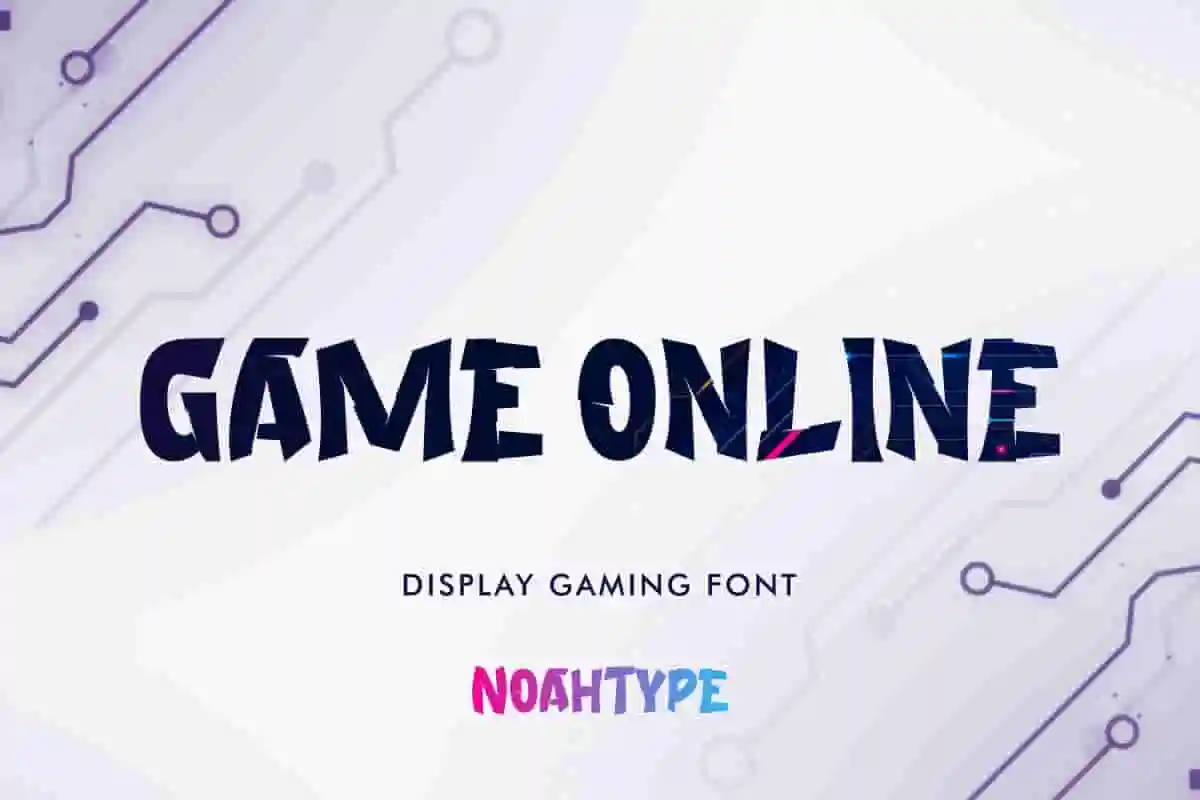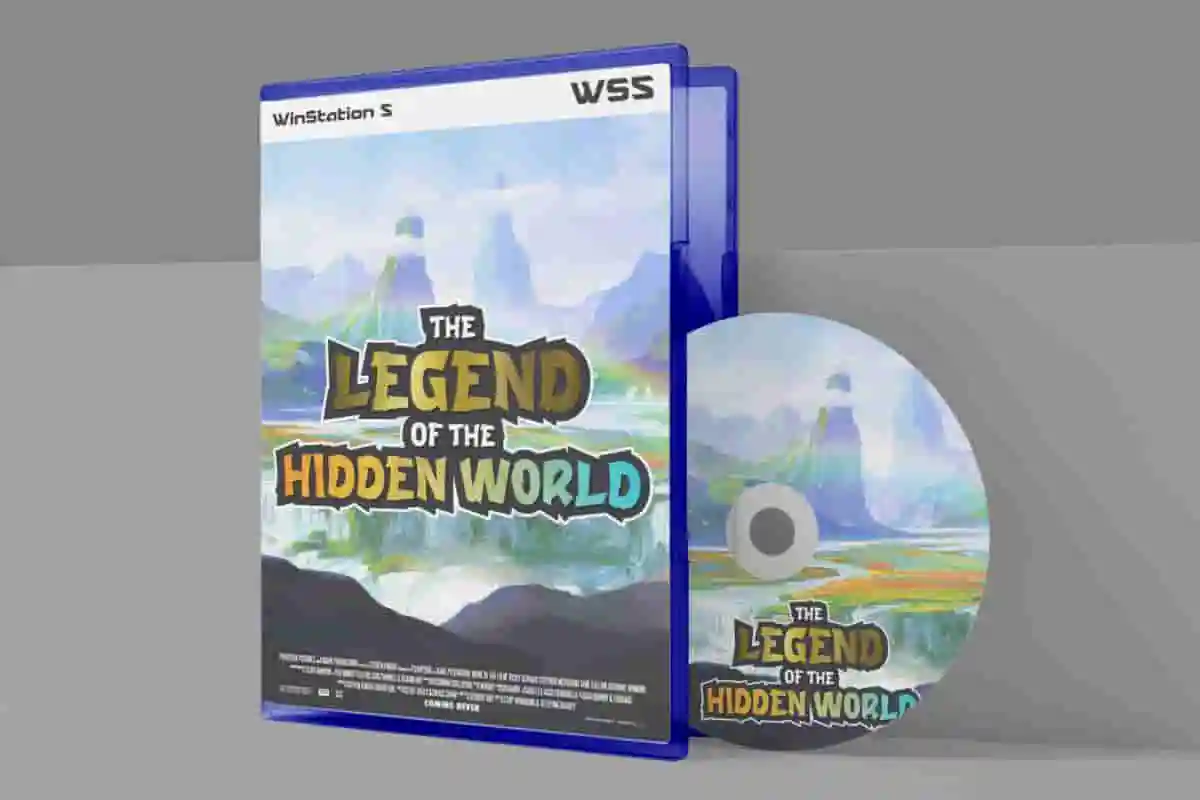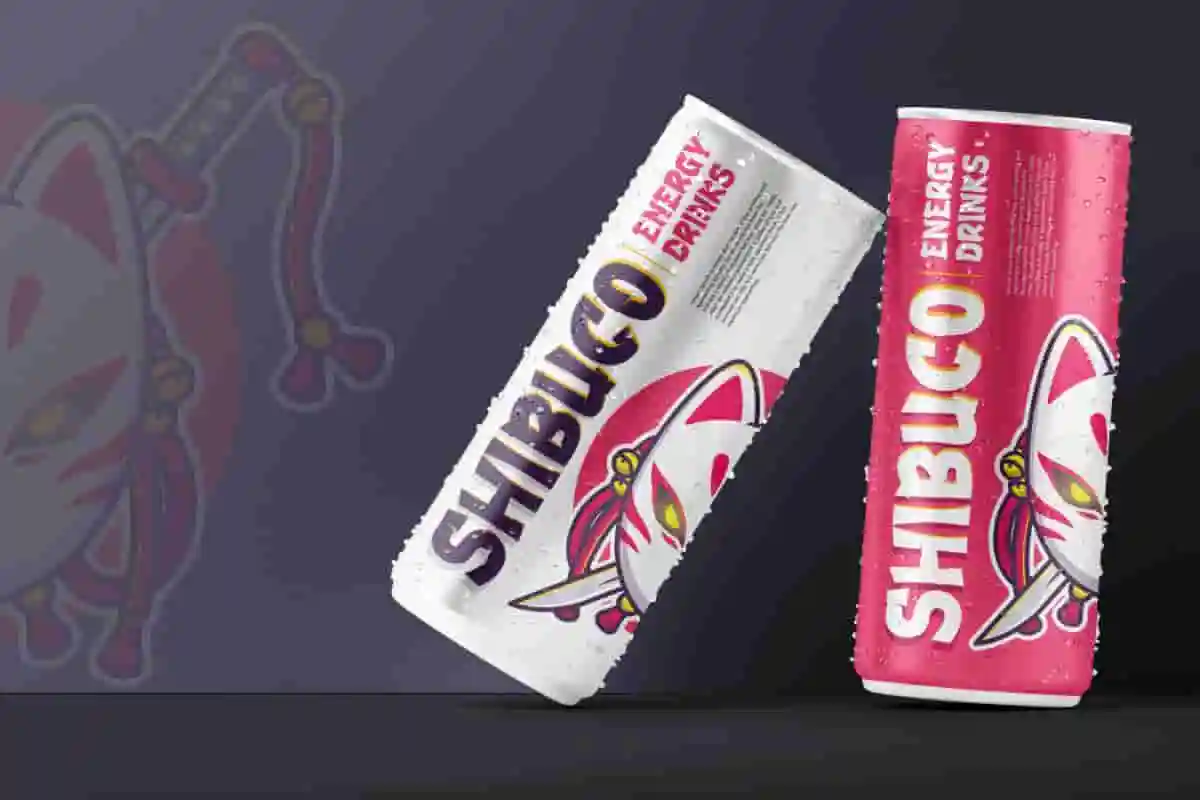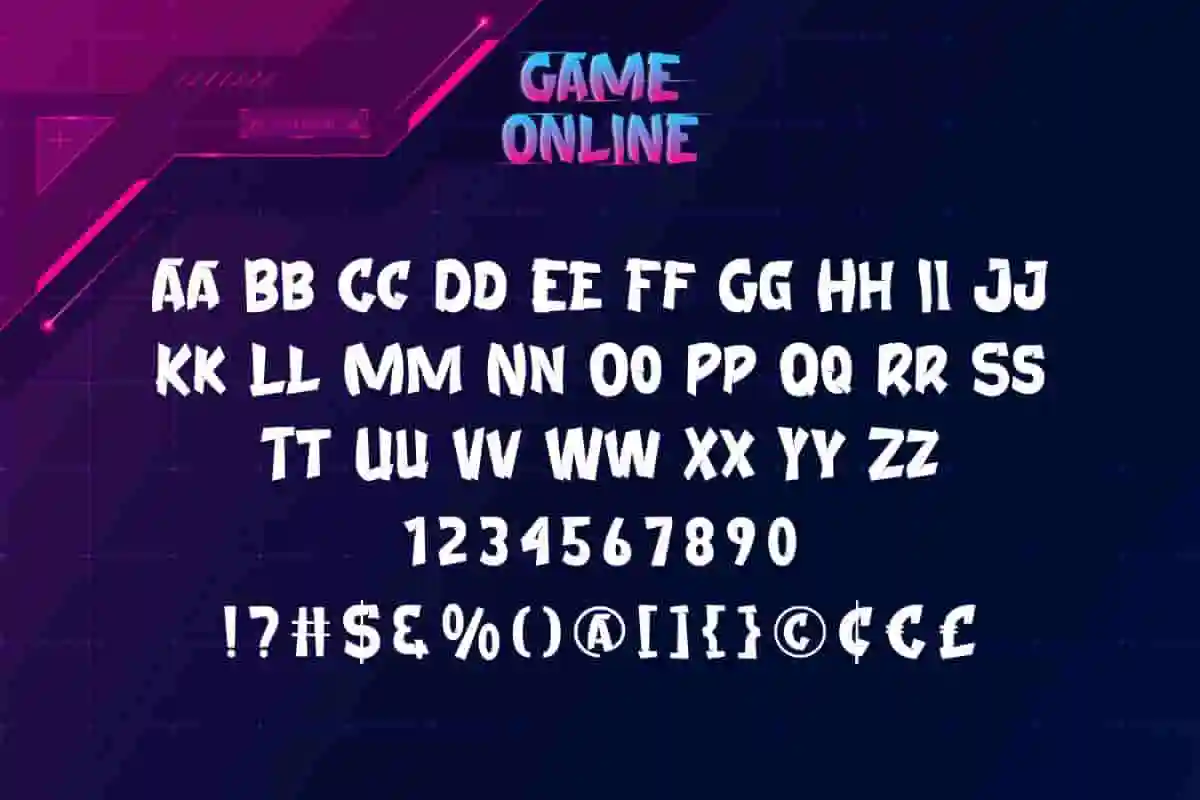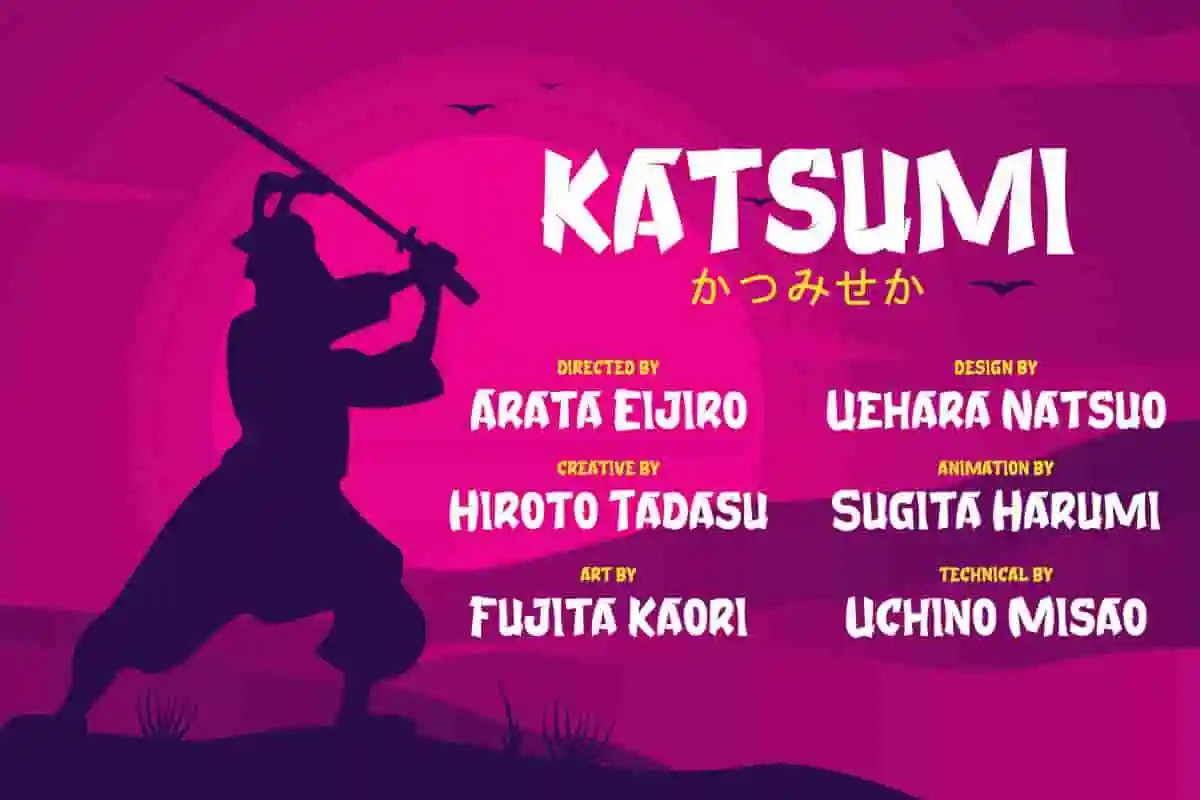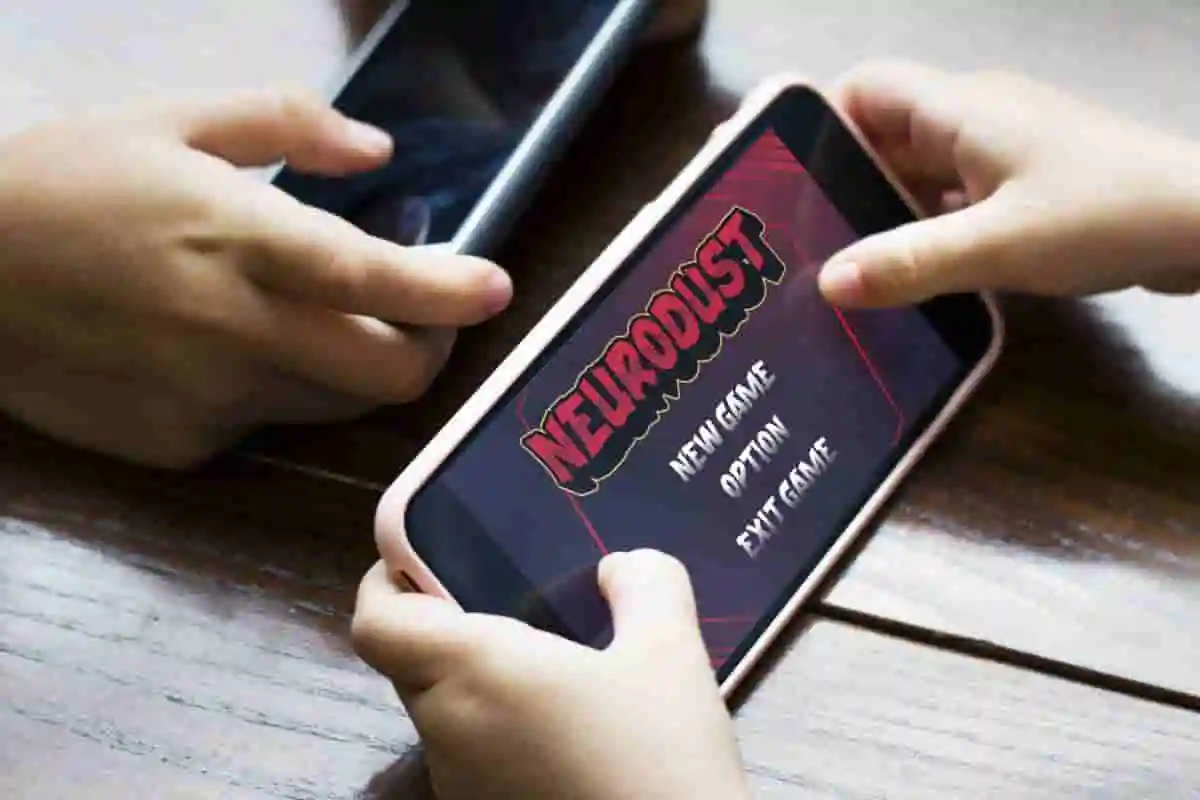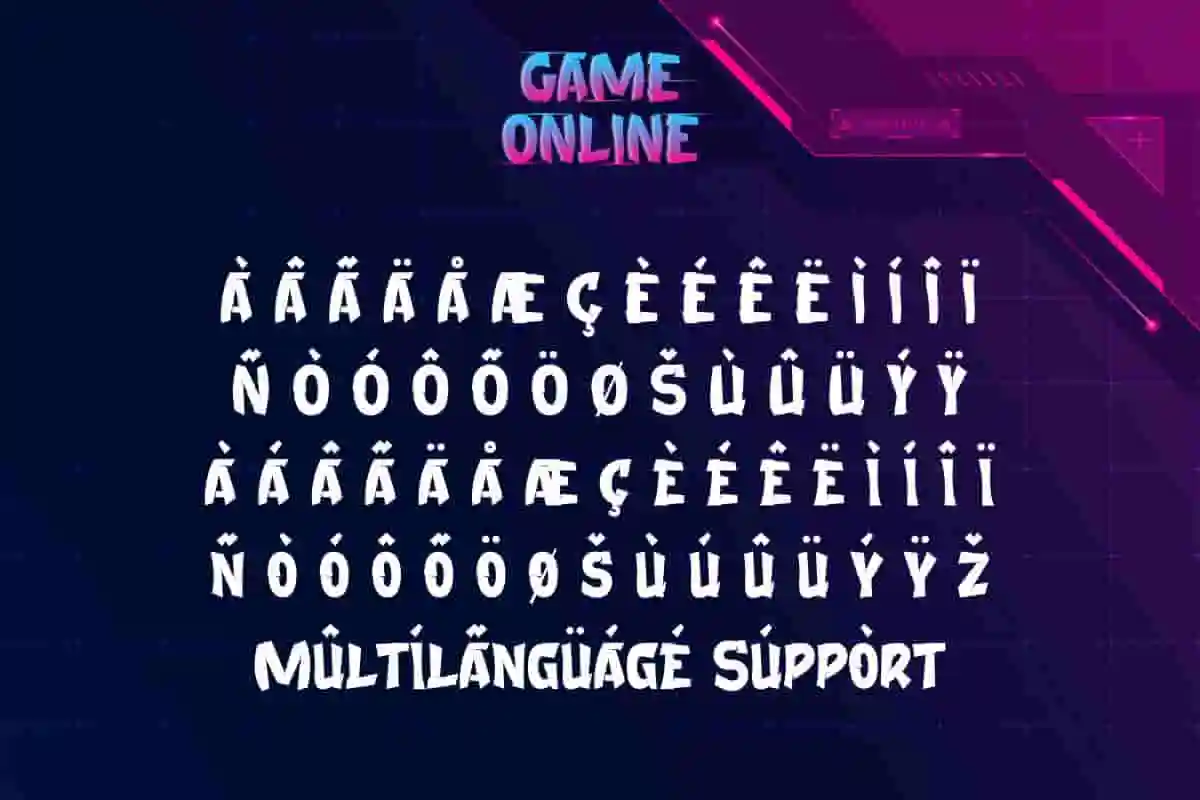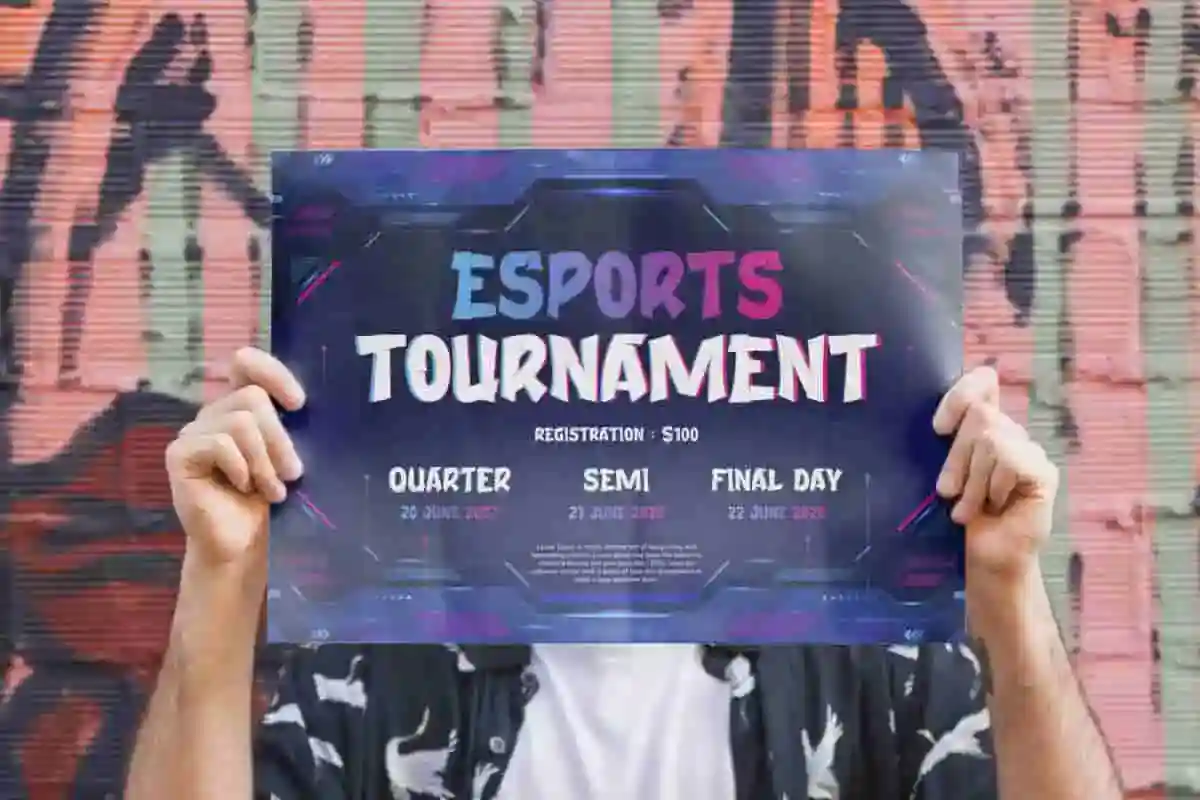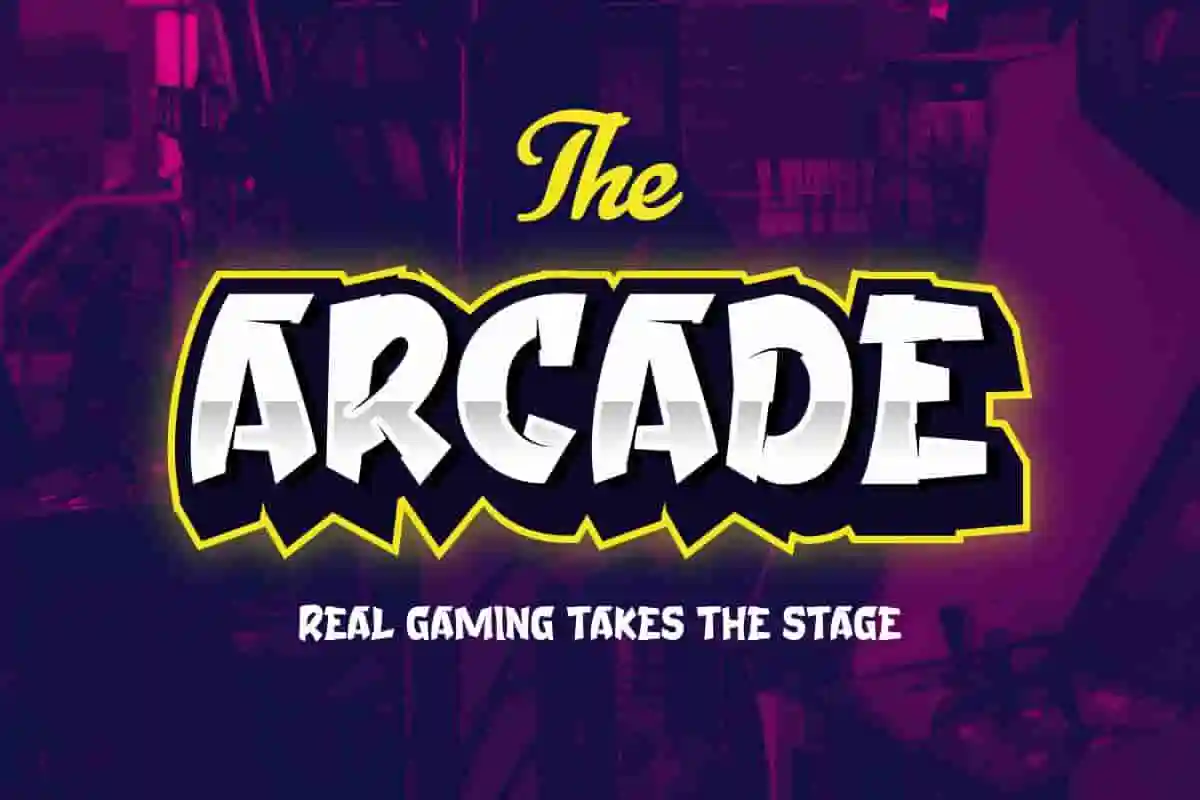
Game Online Font is a fun display font with gaming style created by NoahType. This font has a unique shape that adds a cool look to your amazing projects. It will be suitable for many industry like cartoon, comic, energy drinks, fight, game, movie, musician, publishing, printing, sports, and many more!
Game Online Font includes set of All Caps Basic Characters, Numerals and Punctuation to create an impressive look and amaze you! This font will be perfect for your projects that need a contemporary vibe such as blog headers, brand logo, compact disc design, headline, invitation, label, poster, product packaging design, quote, etc.
With its sharp edges, dynamic lines, and modern tech-inspired details, Game Online Display Gaming Font is built to grab attention instantly. Whether you are designing a game logo, streaming banner, team jersey, or YouTube thumbnail, this font delivers an epic gaming atmosphere every time. It’s the perfect way to make your designs stand out in the competitive gaming industry.
Why Choose Game Online Display Gaming Font?
Bold & Impactful: Designed to dominate the screen and create strong visual impressions.
Versatile Use: Perfect for titles, branding, posters, merchandise, and social media.
Futuristic Style: Inspired by high-tech gaming aesthetics and sci-fi elements.